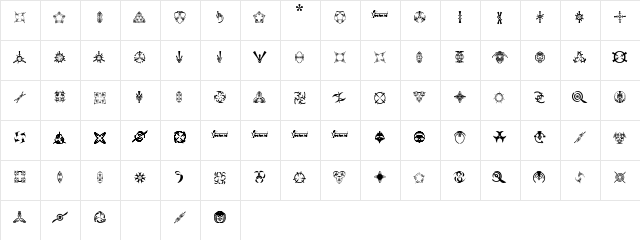
FontsVectorAncientSymbol Regular
Design Context for FontsVectorAncientSymbol Typeface
FontsVectorAncientSymbol is a composed and adaptable typeface that performs quietly and consistently across a wide range of design contexts.